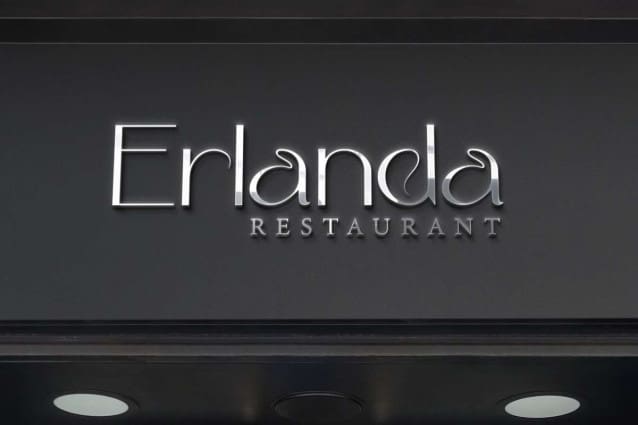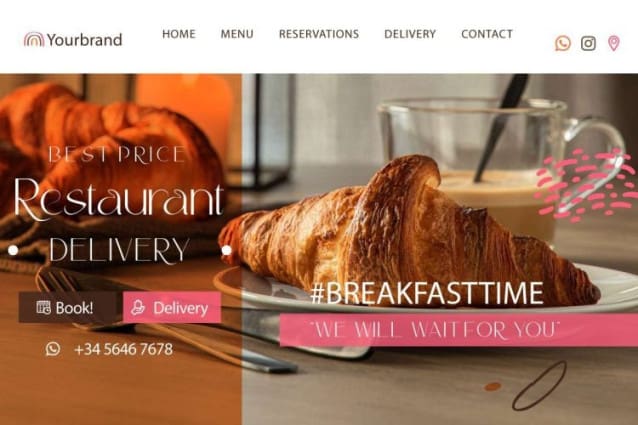
Cabbage Roll Font
Cabbage Roll Font is a simply elegant and modern serif display font that inspired from healthy vegetable name. That’s amazing for whatever your design is, such as apps, blogs, brochure, catalogue, cover, flyer, header, logos, menu, packaging design, poster, product label, quotes, screen print, signage, stationery, sticker, title, website, and more.
Cabbage Roll Font comes with a full set of Uppercase and Lowercase letters, Number, Punctuation and Symbol. The modern typeface conveys a stylish feel and can always be adapted to projects for any industry, such as ads, author, bakery, café, content creator, cooking class, culinary, fashion, graphic design, handicraft, healthy food, printing, publishing, restaurant, supplement, web designer, writer, etc.